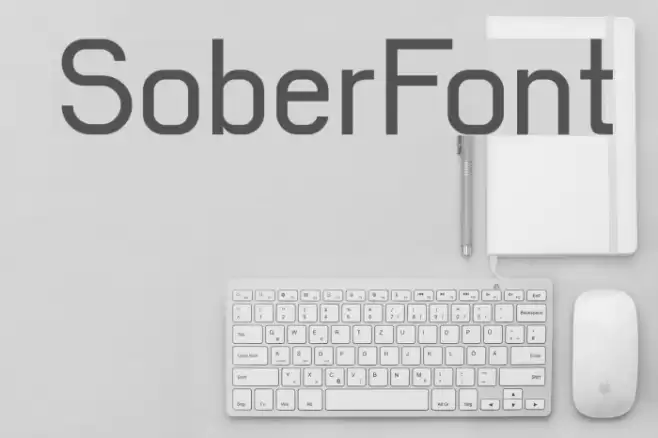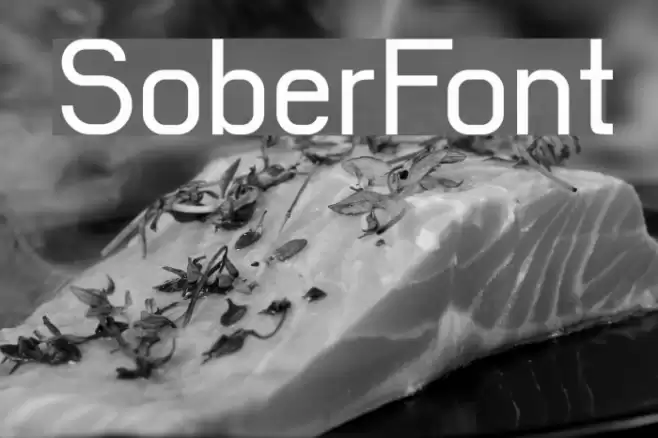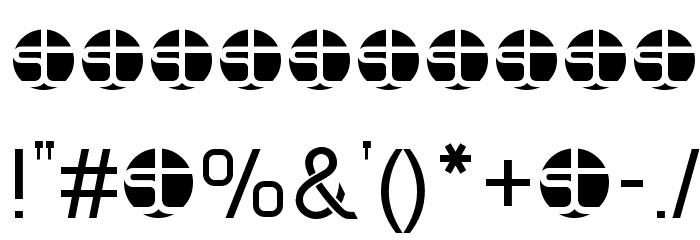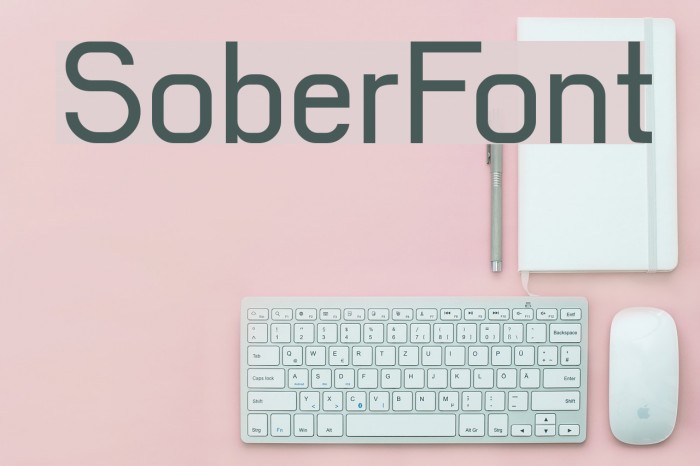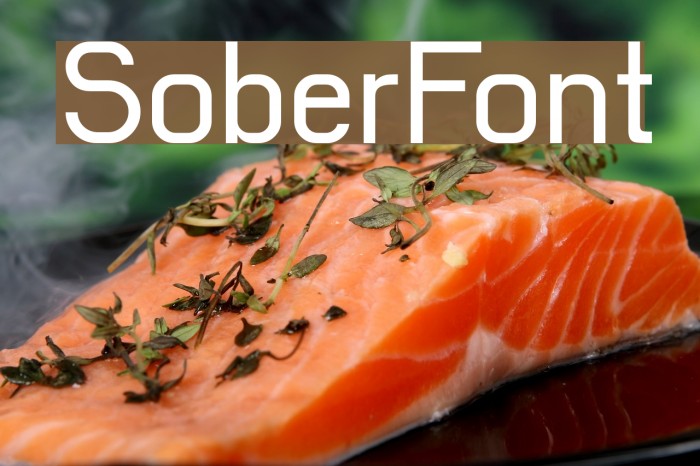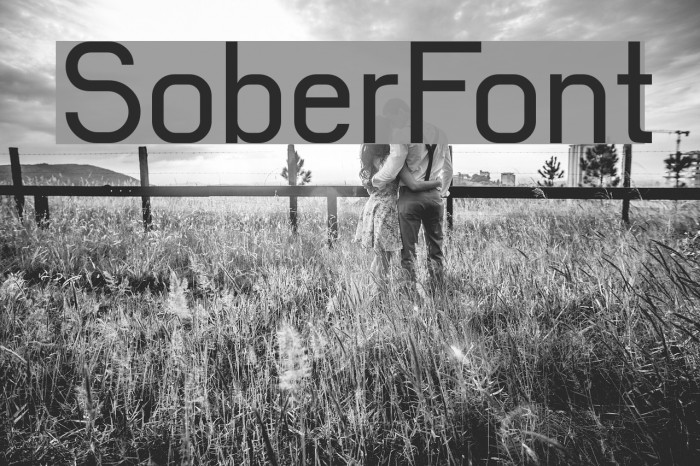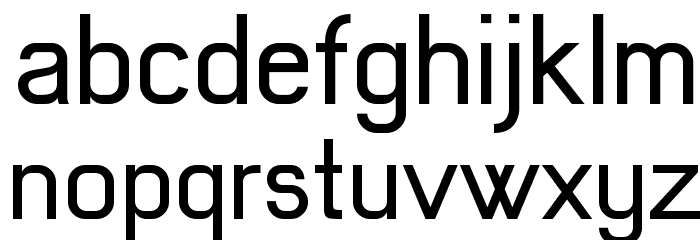
Sober Font
Sober Description
This font features a clean and modern sans-serif style with a geometric structure. The characters are uniform in width, contributing to a balanced and harmonious appearance. The uppercase letters are bold and assertive, while the lowercase letters maintain a consistent height, enhancing readability. The numerals are straightforward and align well with the overall design. Special characters are distinct and integrate seamlessly with the rest of the font. The overall impression is one of clarity and precision, making it suitable for a variety of applications.
A modern, geometric sans-serif font with a clean and balanced appearance from Uncategorized fonts.